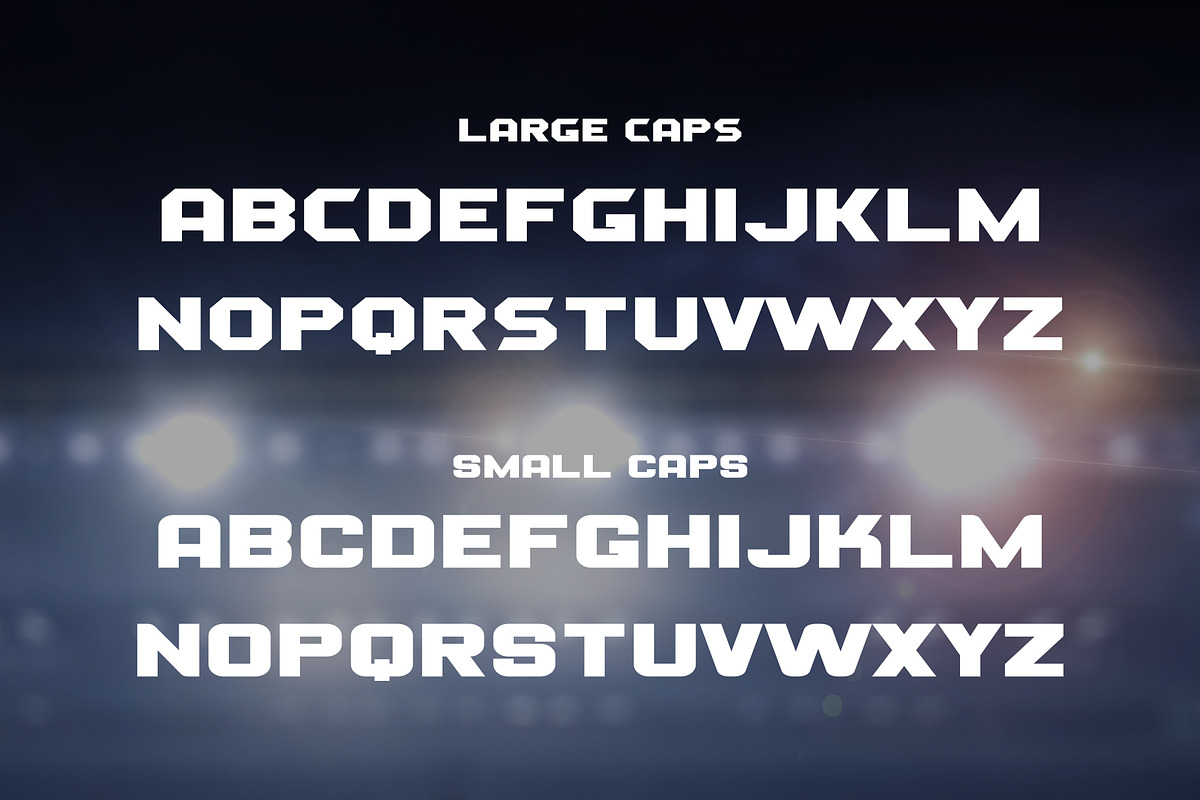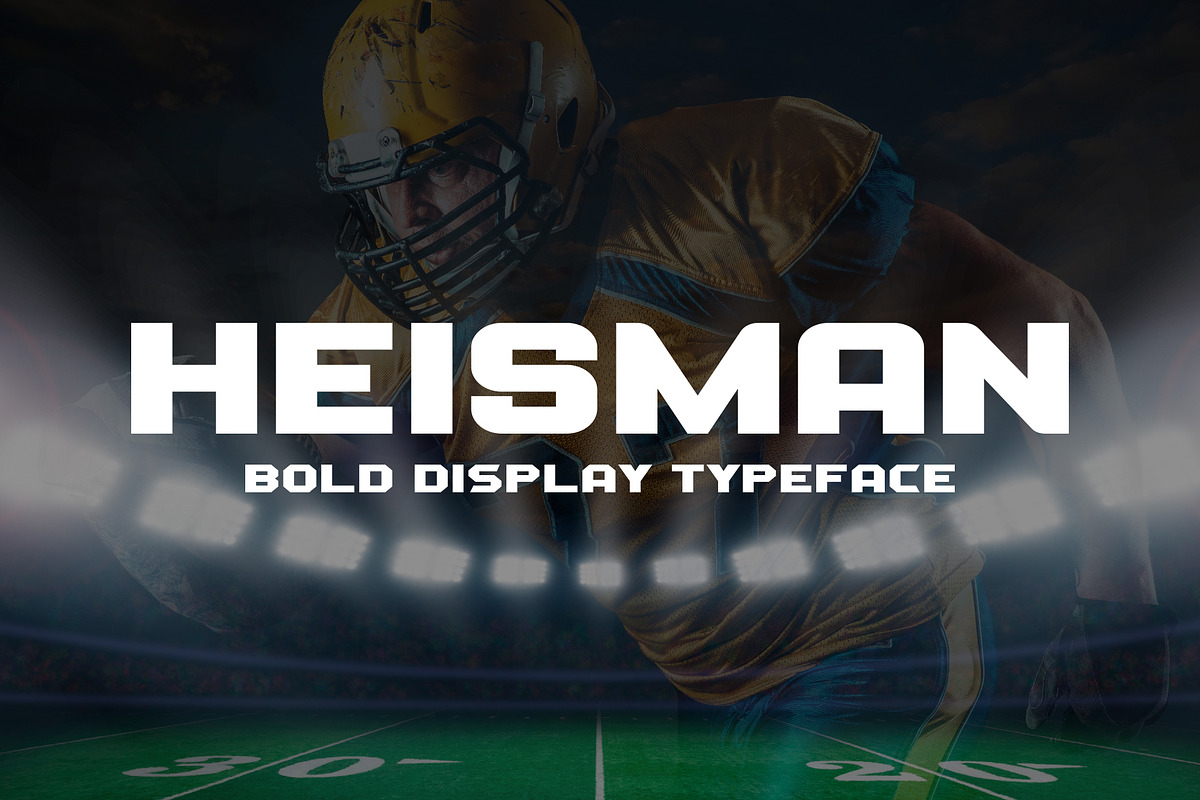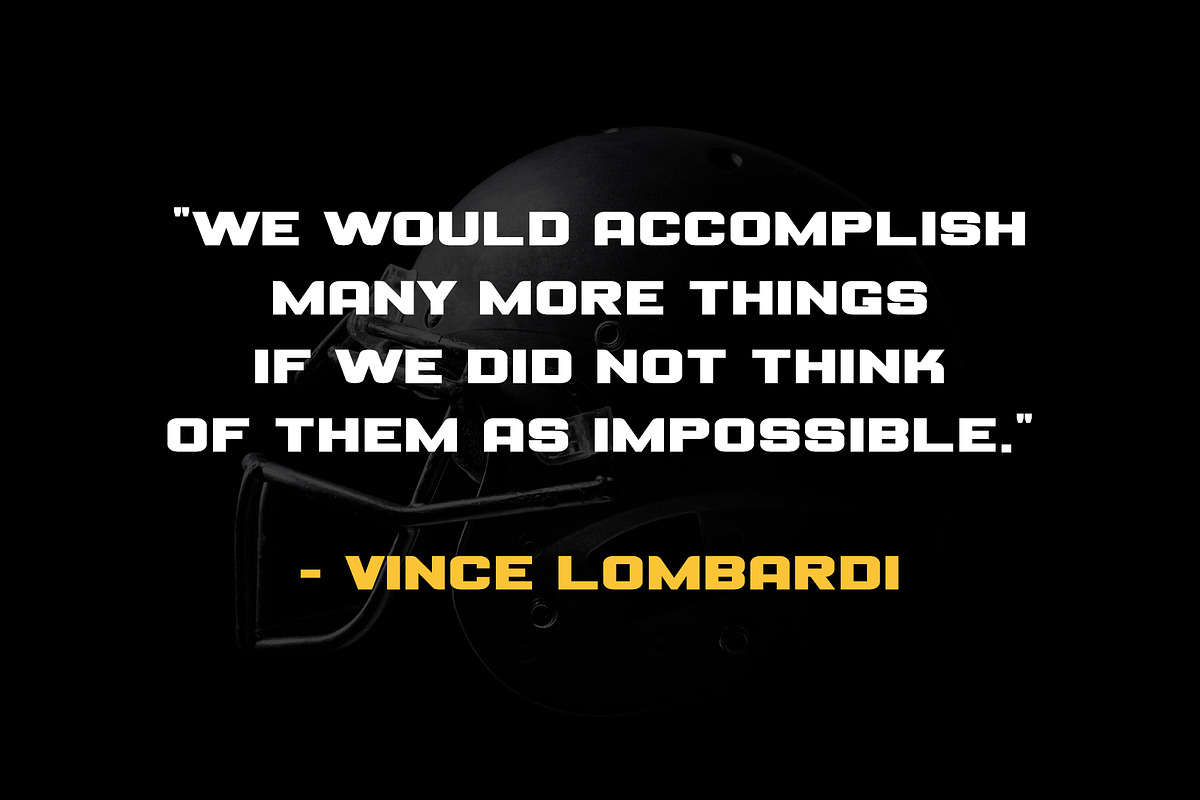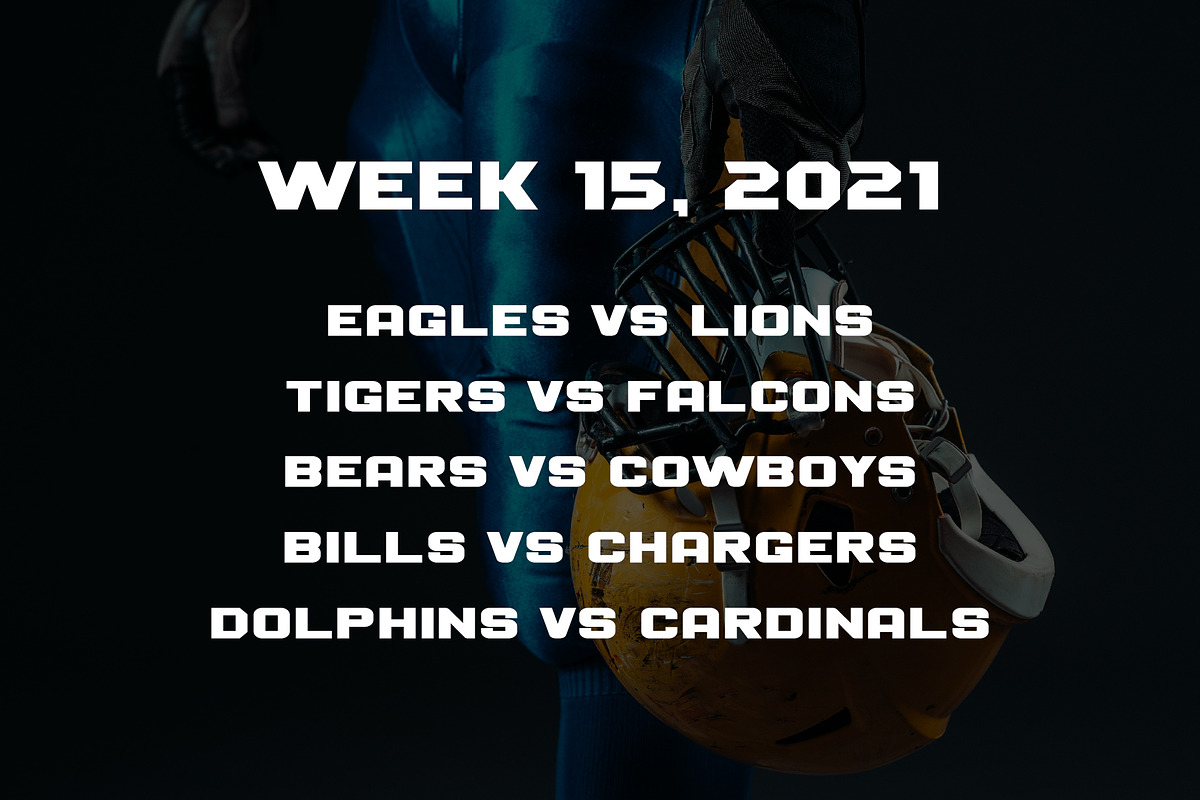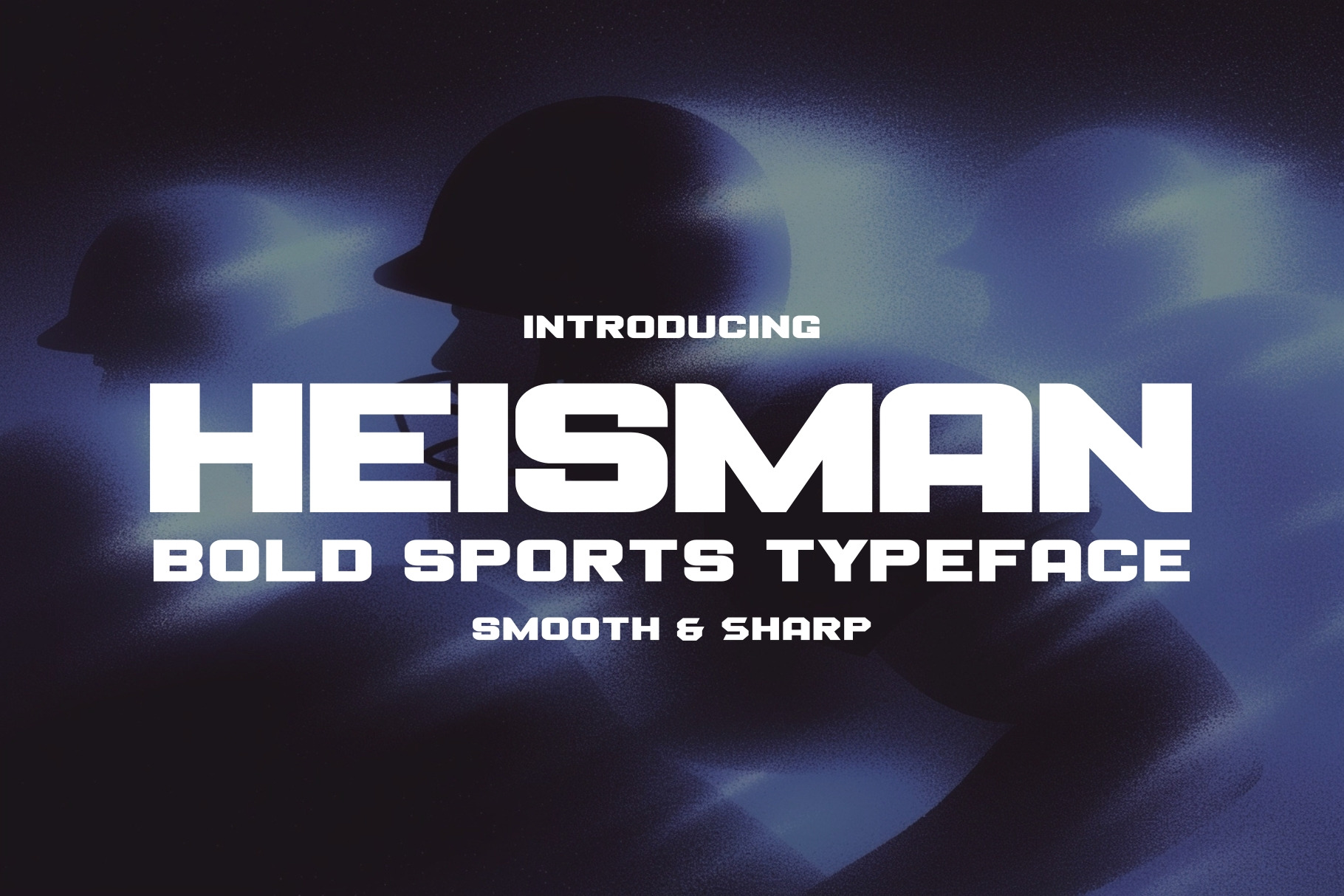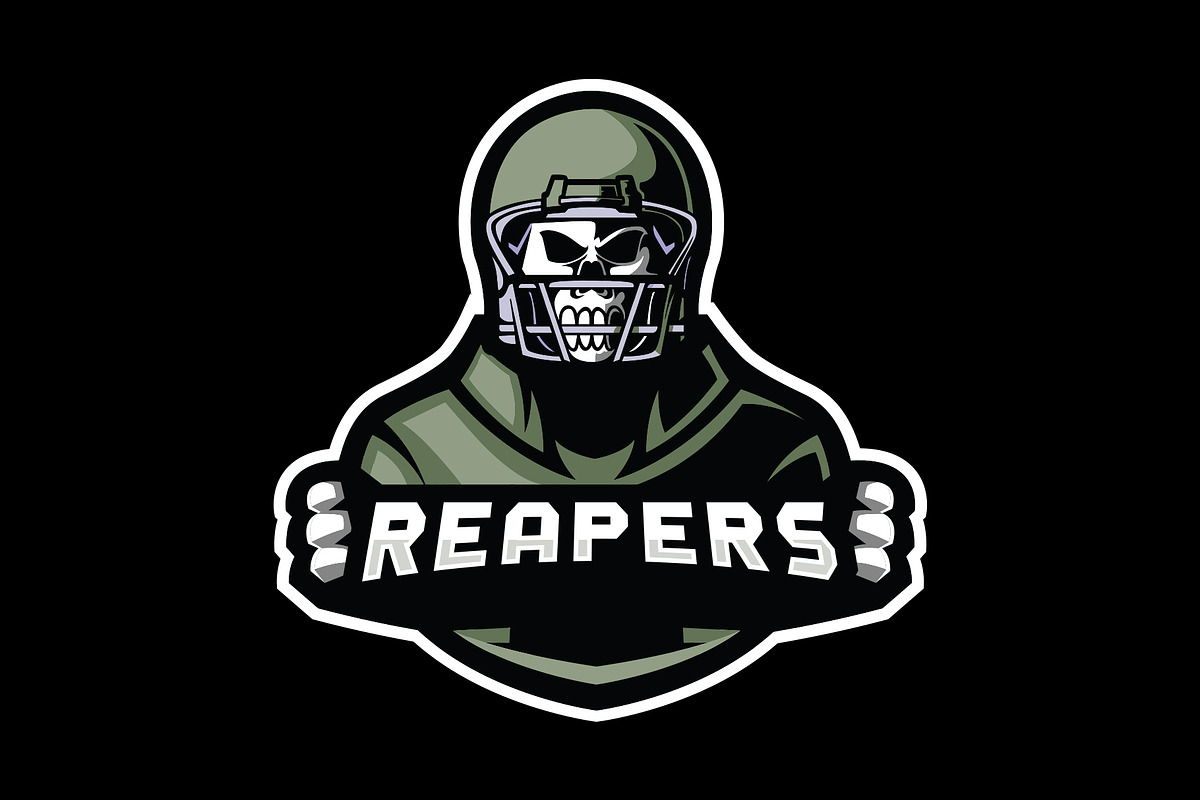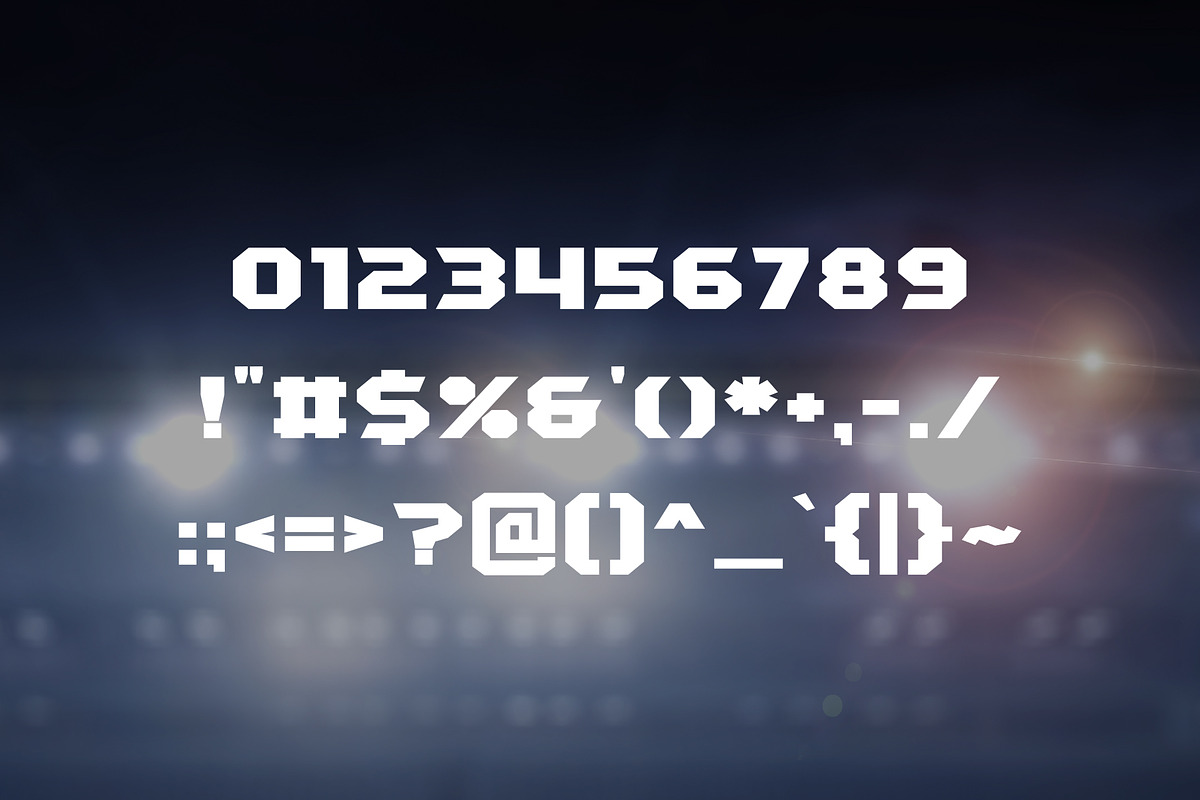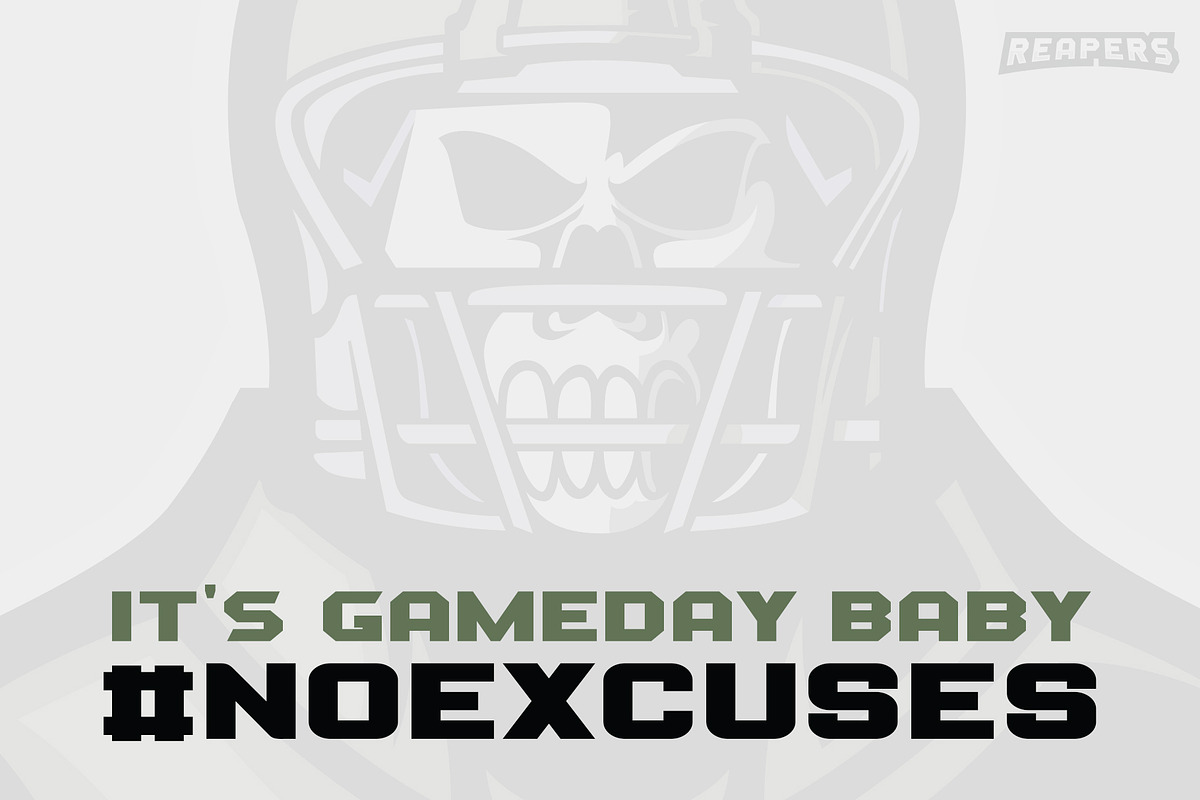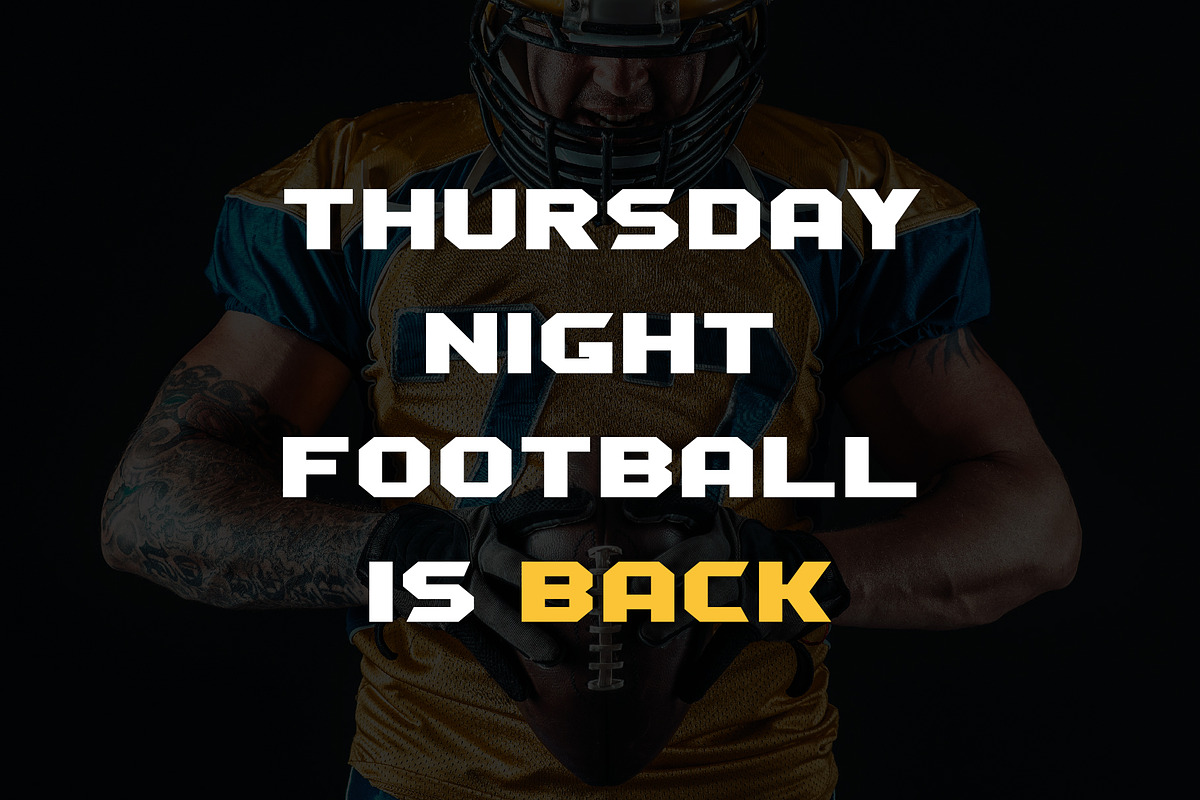
Heisman - Sports Display Typeface
Heisman is an all caps font with unique small and large cap characters. The font is ready to be used for your sports related projects. Built to be perfect for headlines, jerseys, logos, branding, posters, packaging, advertising, and much more.
The font is geometrically perfect, which means it's aesthetically pleasing to the eye. Heisman is fully-kerned and is effortless to use. You can always play around with the spacing, however the typeface looks great when the letters are close to each other.
Heisman comes in two flavors:
- Large Caps - features sharp corners.
- Small Caps - features rounded corners.